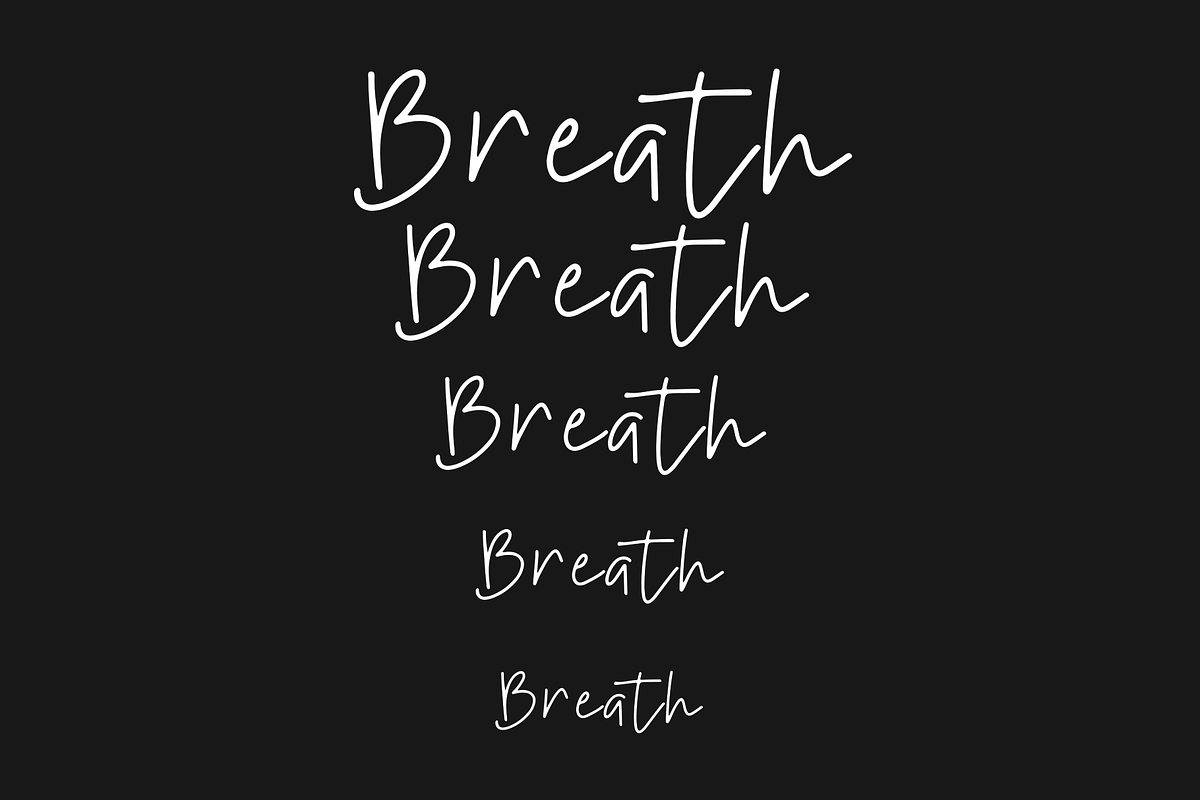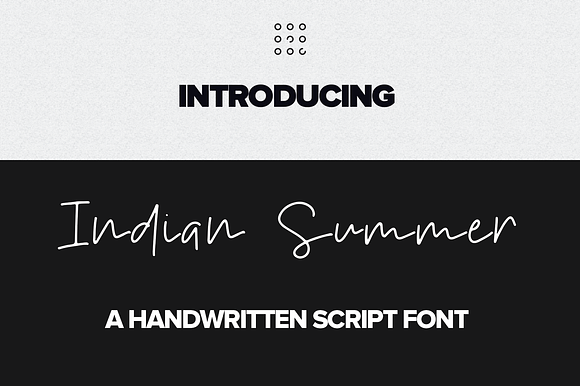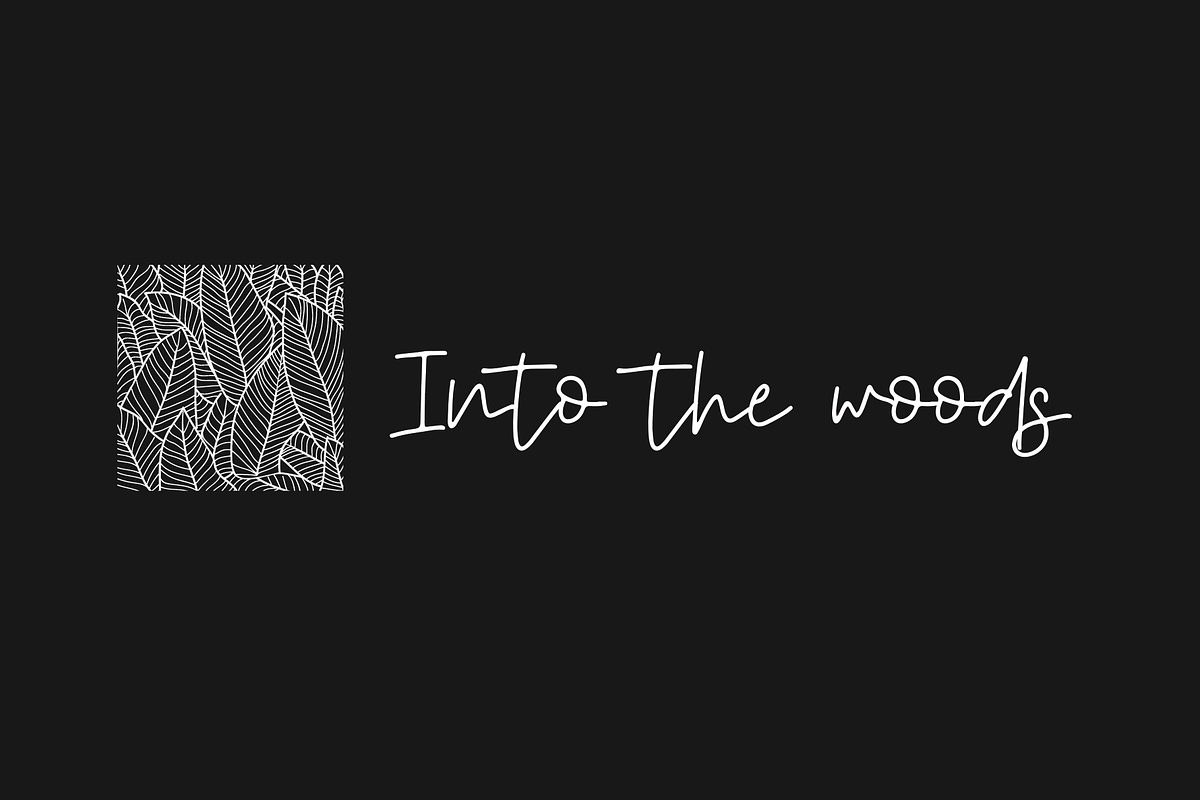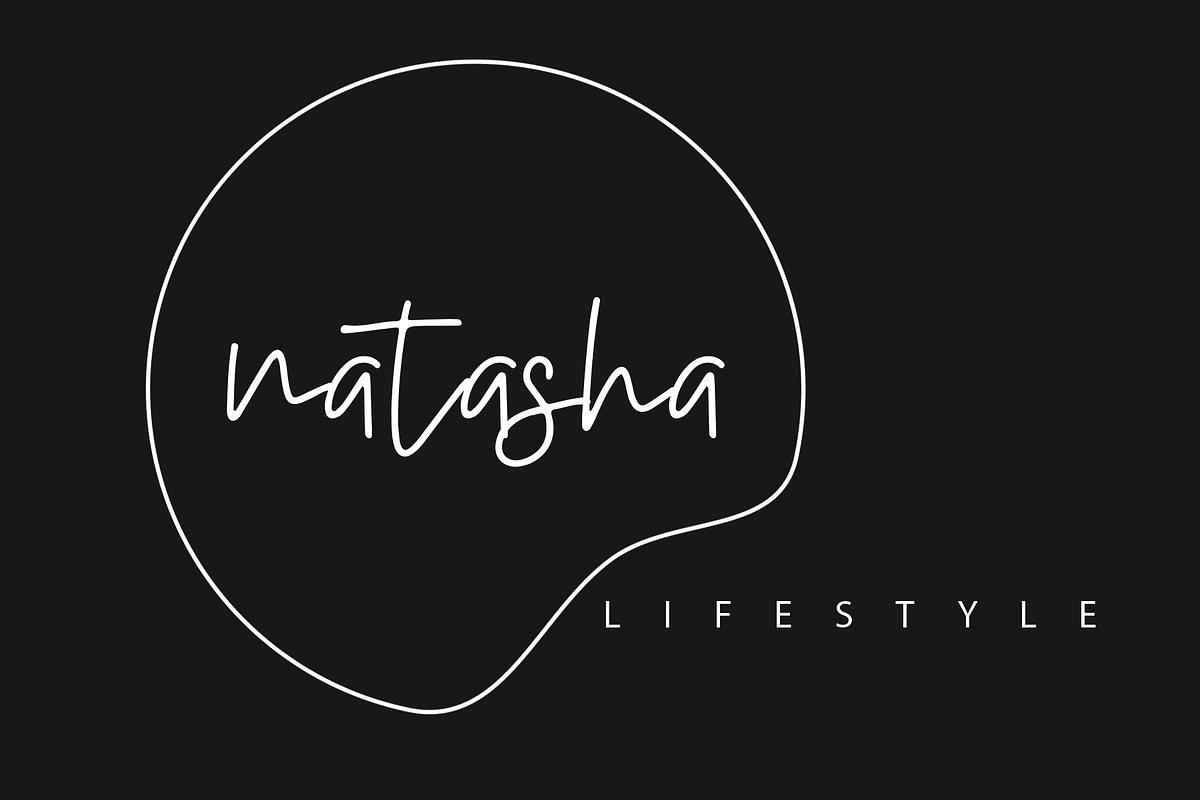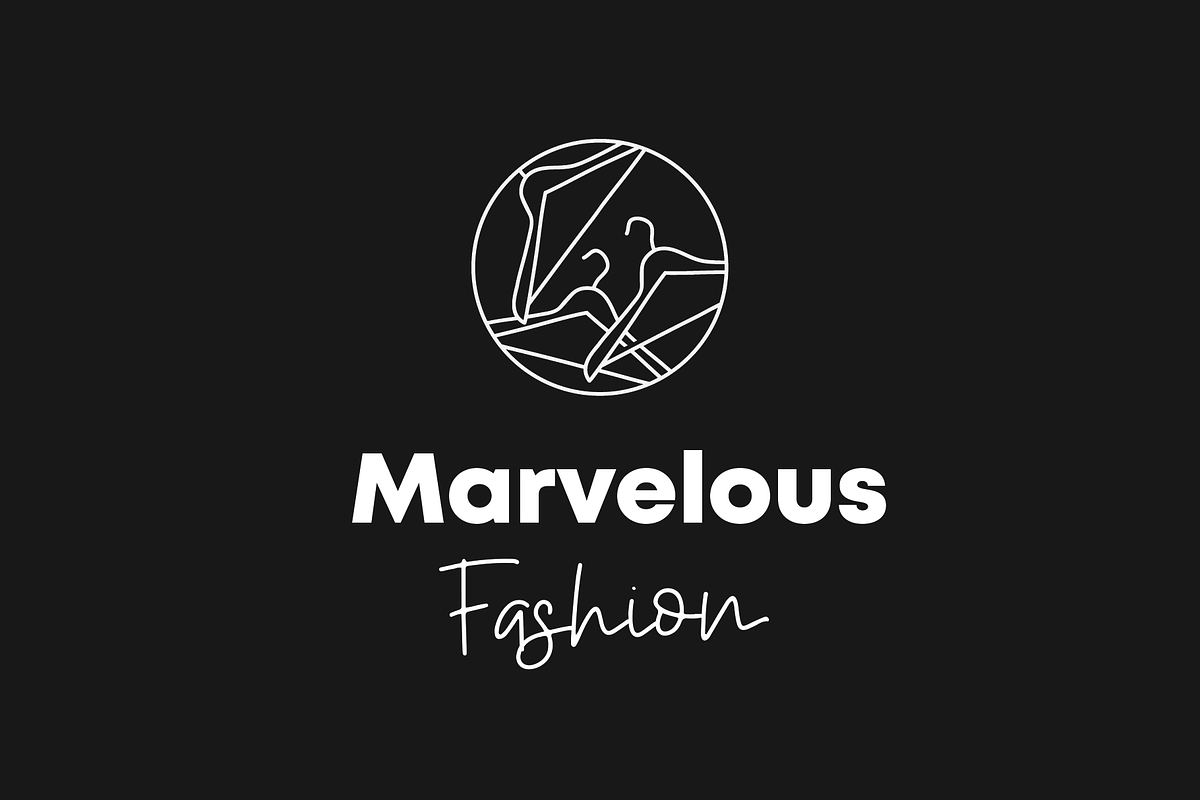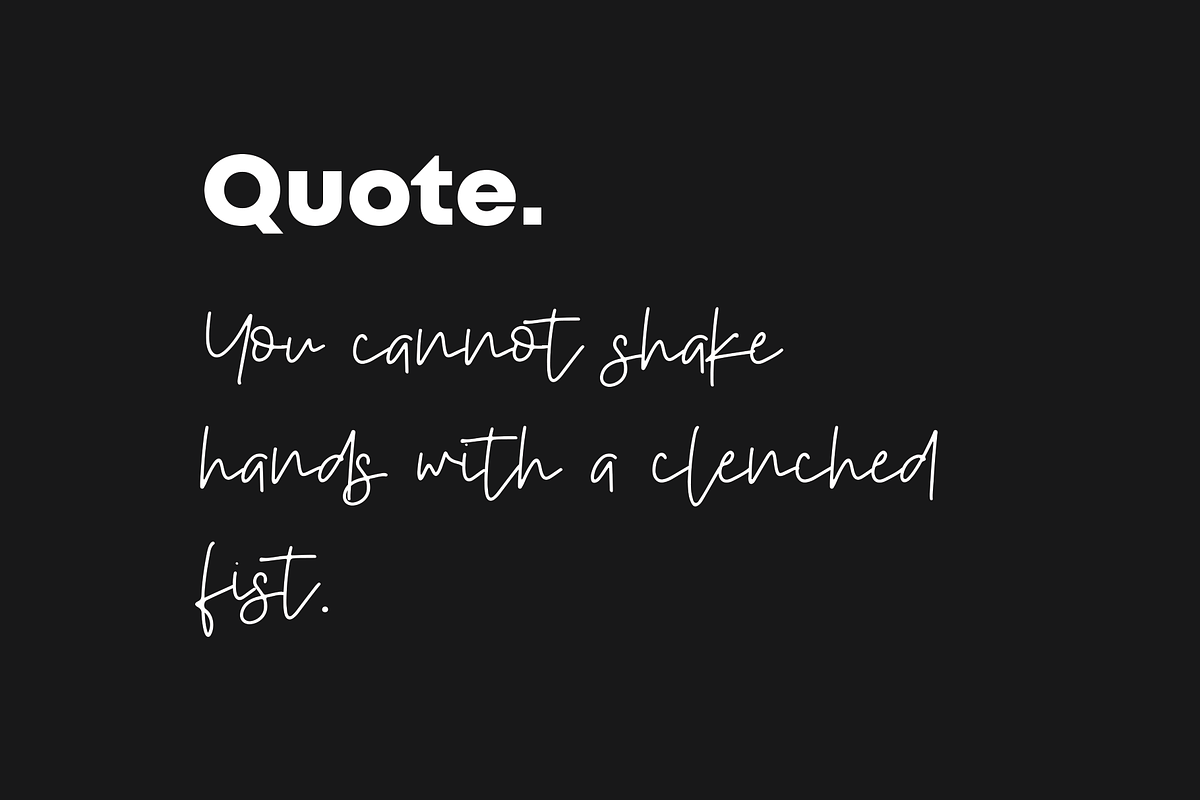
Indian Summer Handwritten font
Indian Summer is a elegant handwriting style font. You can use it for various projects such as branding design, blog headers, signatures, quotes, fashion apparel, business card, stationery and more...
Indian Summer Handwritten font by I & M Lightroom Presets fits naturally into Branding, posters, packaging, typography.